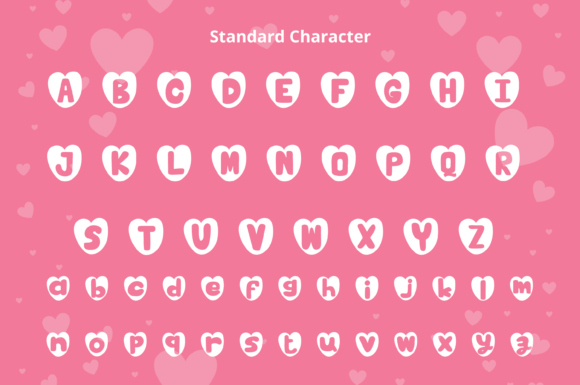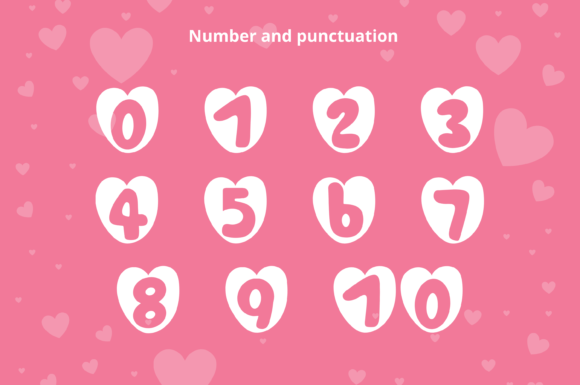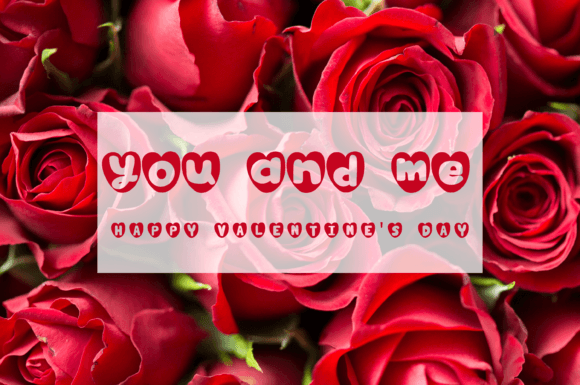
Introduction to Decor Heart Font
Decor Heart is a whimsical and adorable decorative font.
Key Features of Decor Heart Font
Why Choose Decor Heart Font?
Decor Heart Font offers exceptional quality and versatility, making it a valuable addition to your design toolkit. Whether you’re creating for personal projects or commercial use, Decor Heart Font delivers professional results.